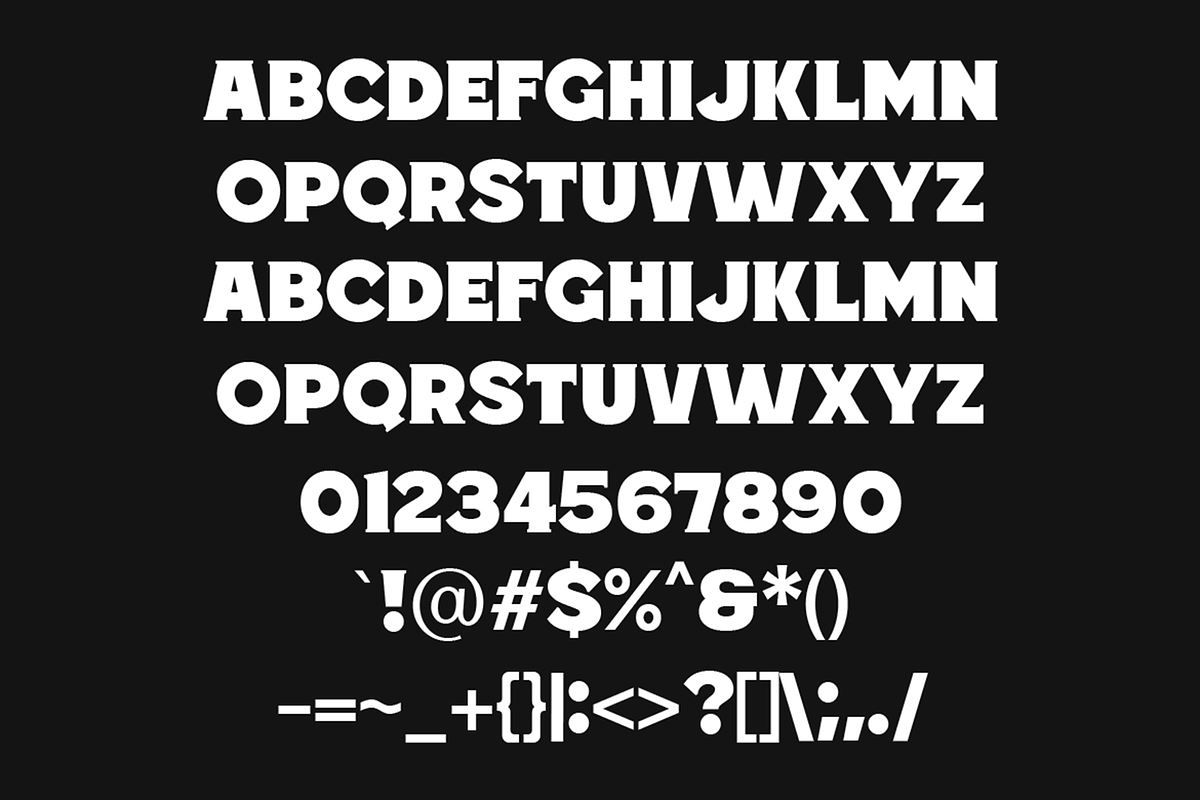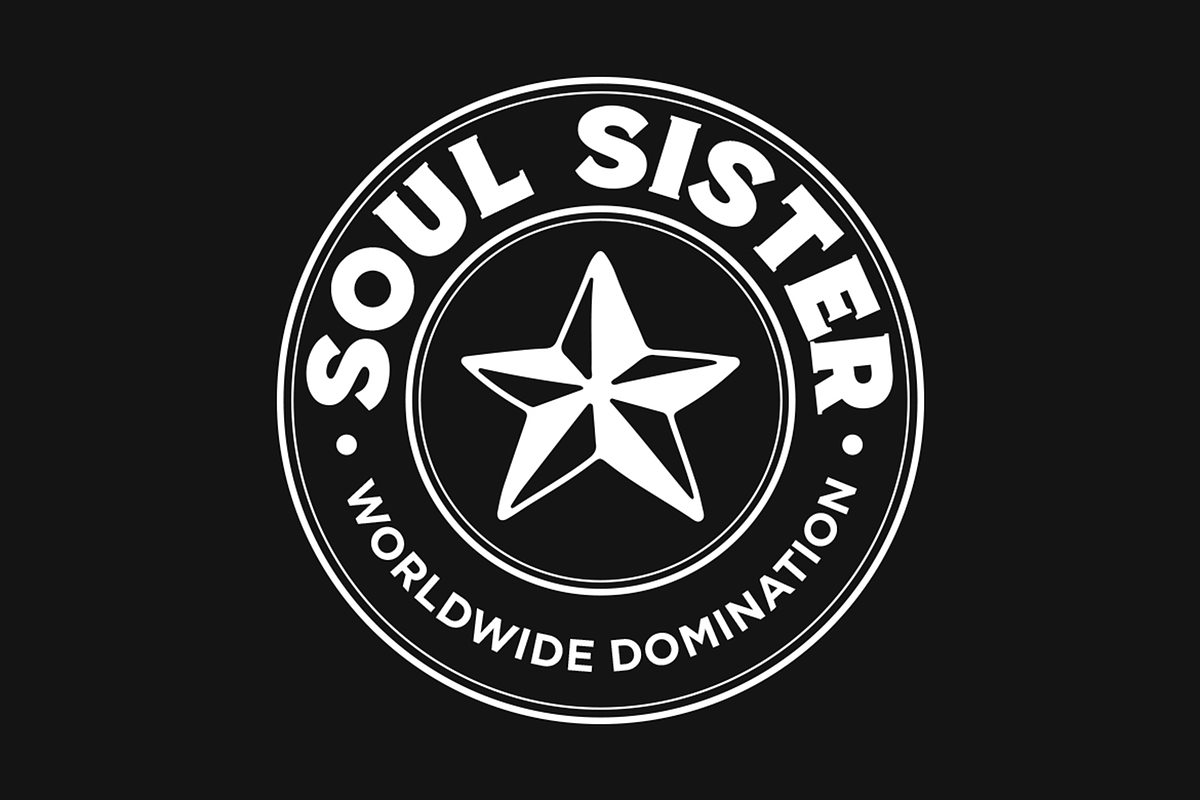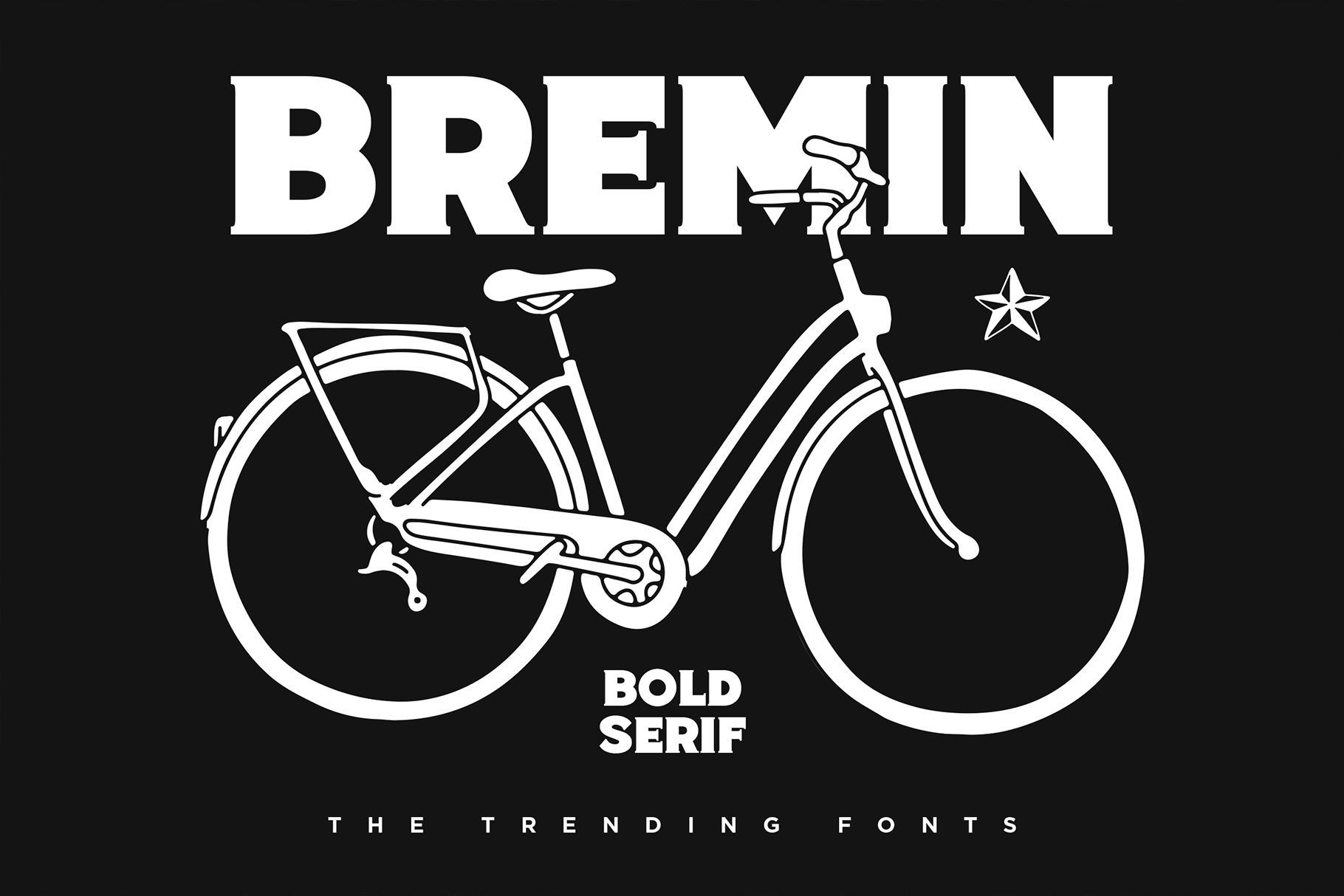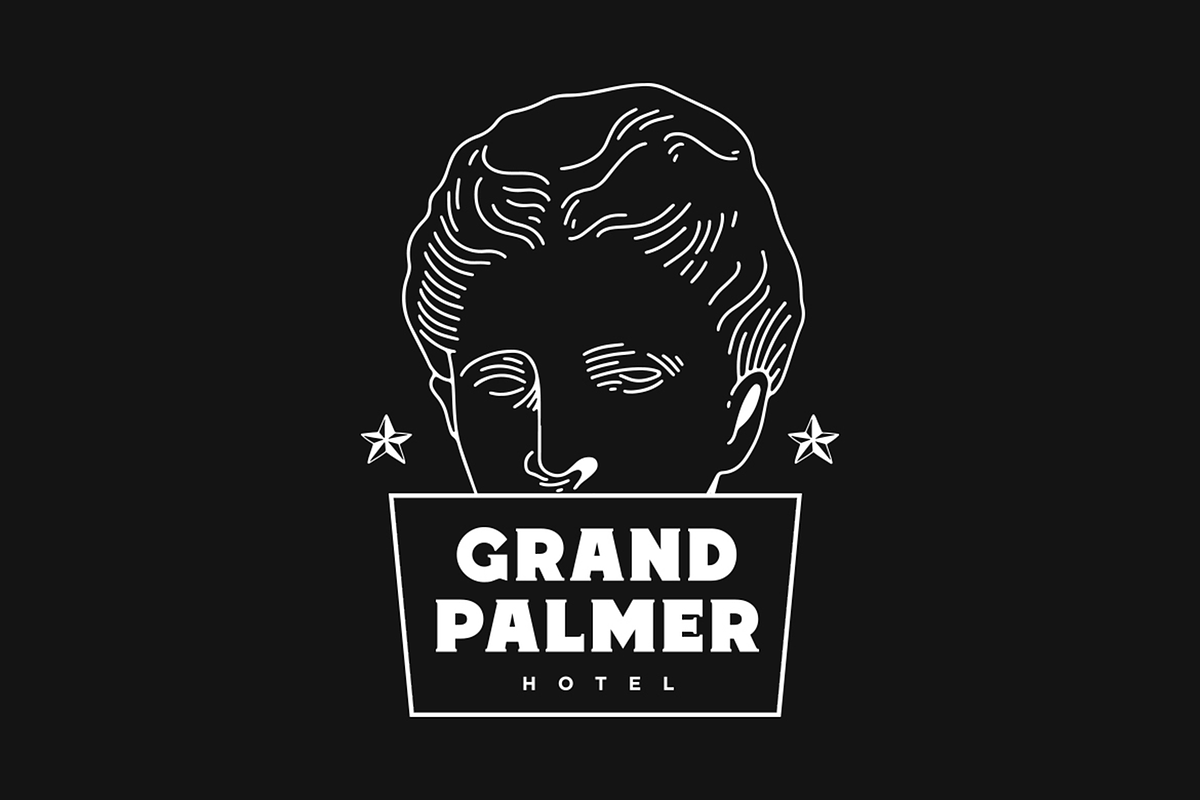
Bremin – Bold Vintage Fonts
Make your presence stronger with our BREMIN font. A vintage bold serif typeface with an all caps style and English language support.